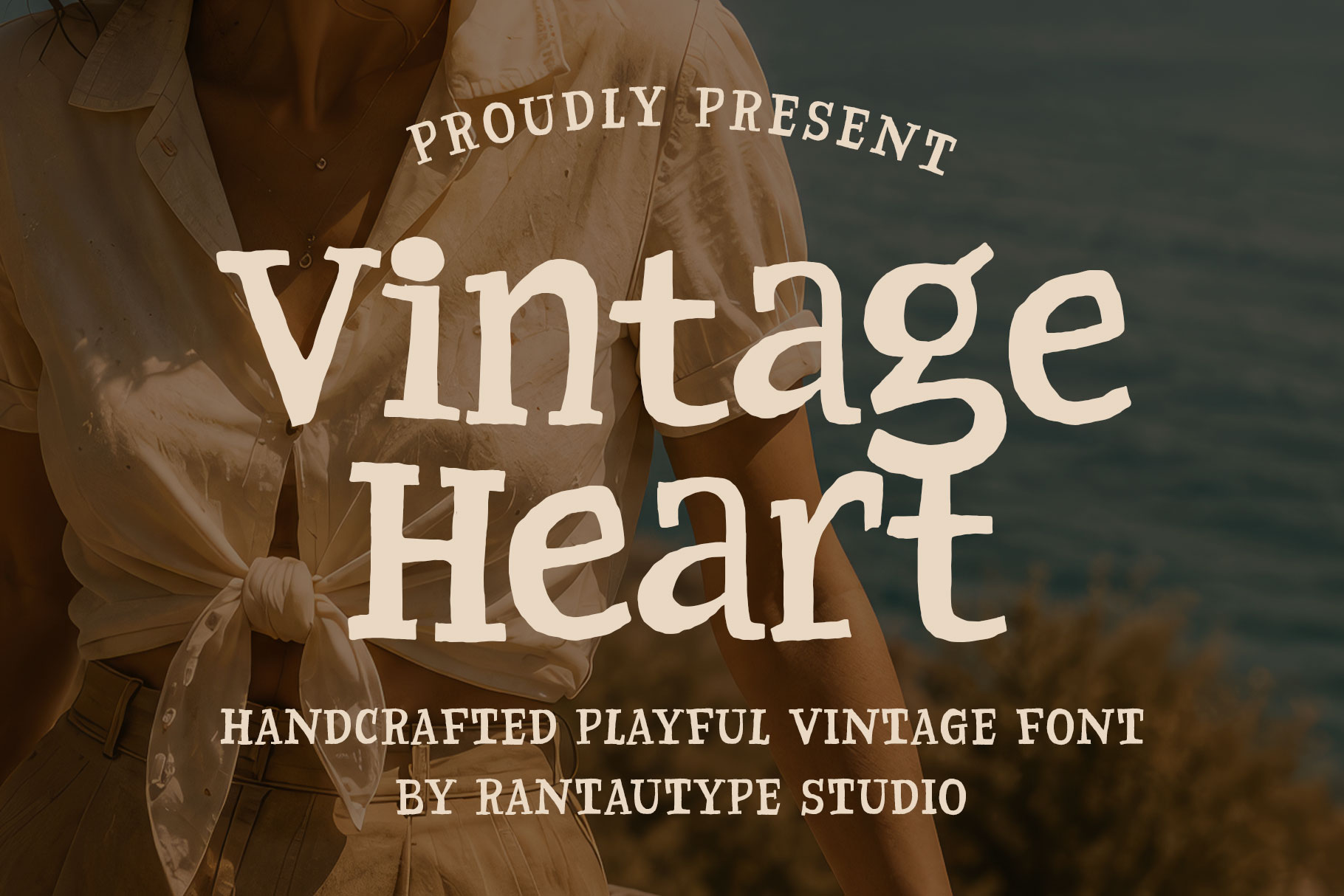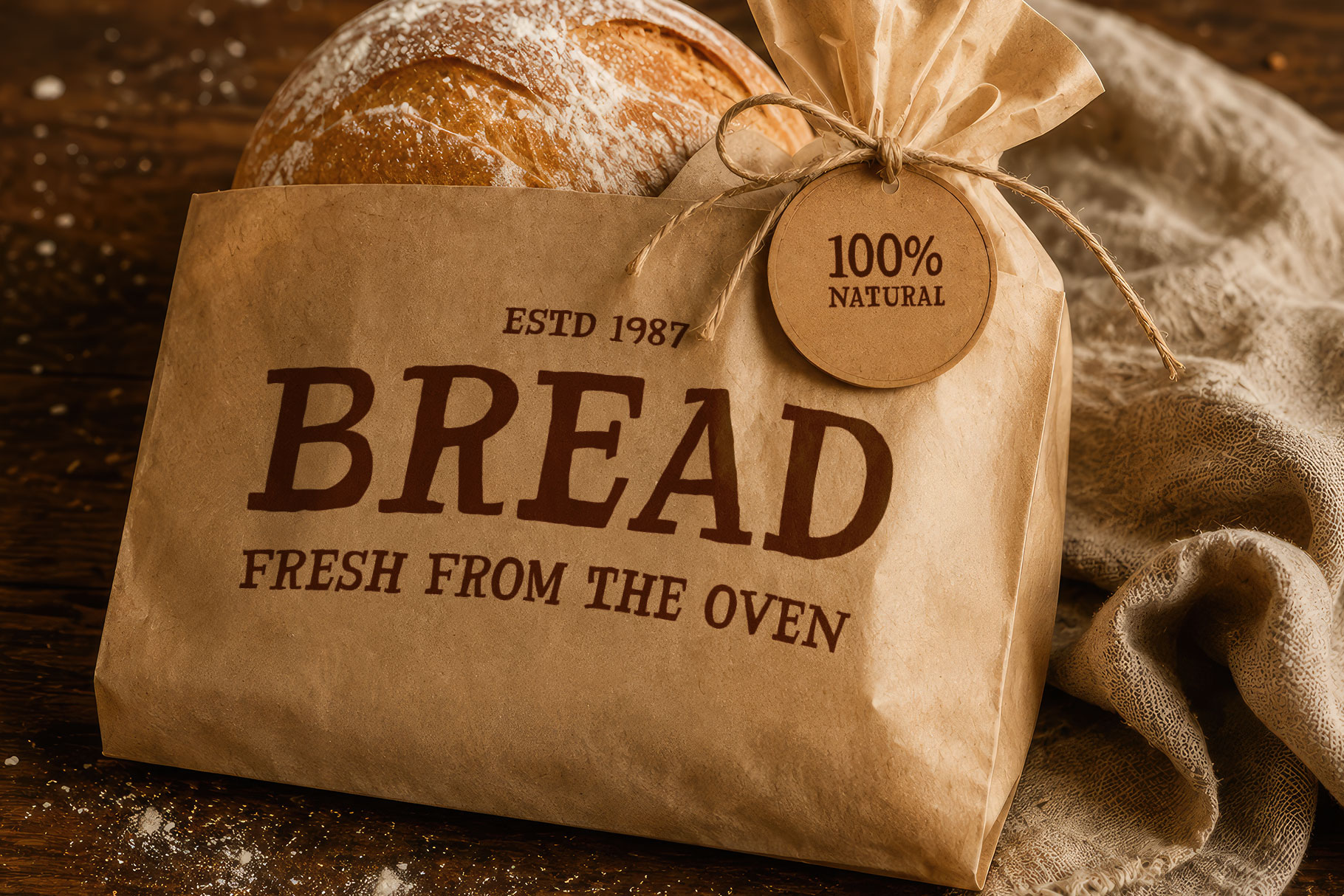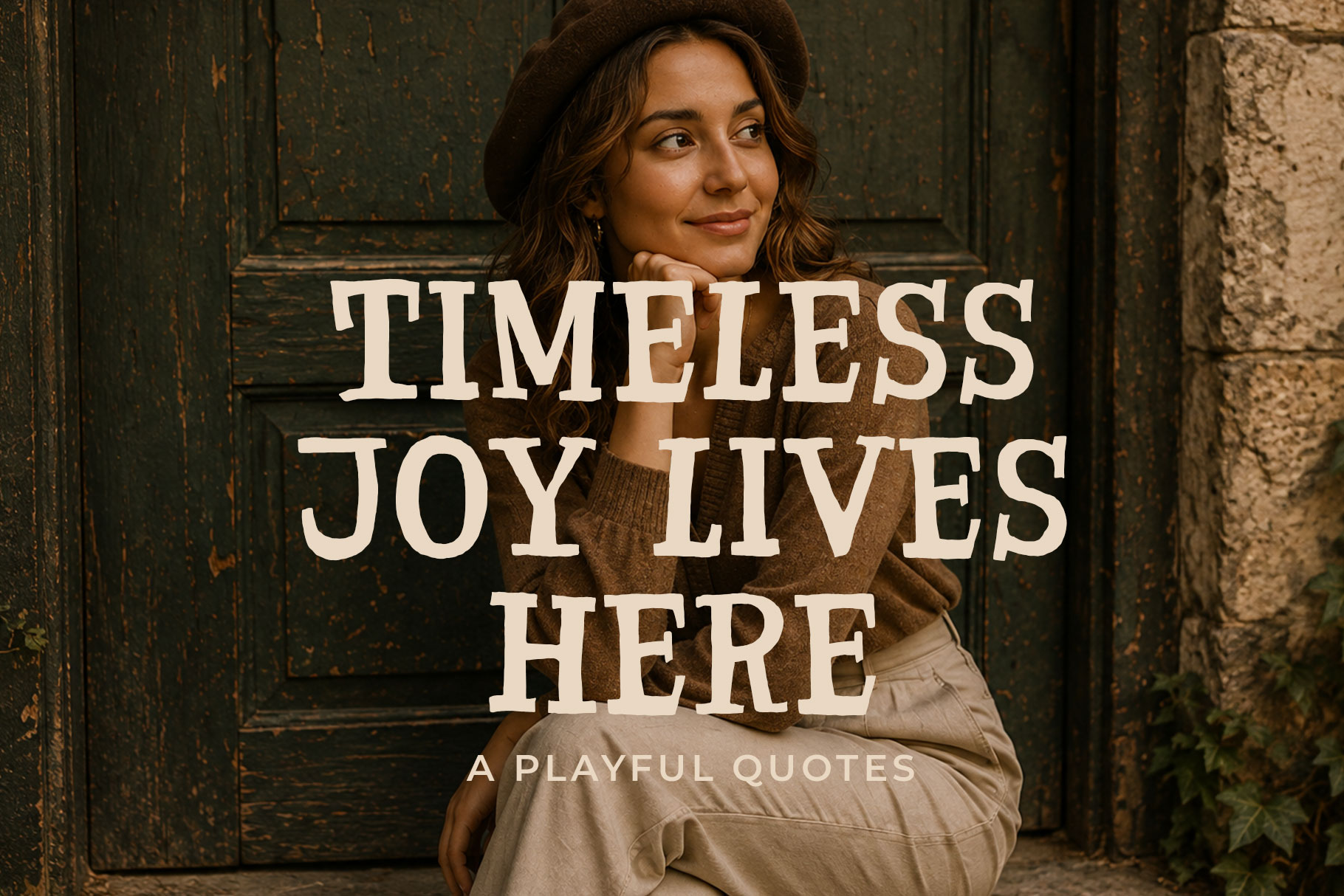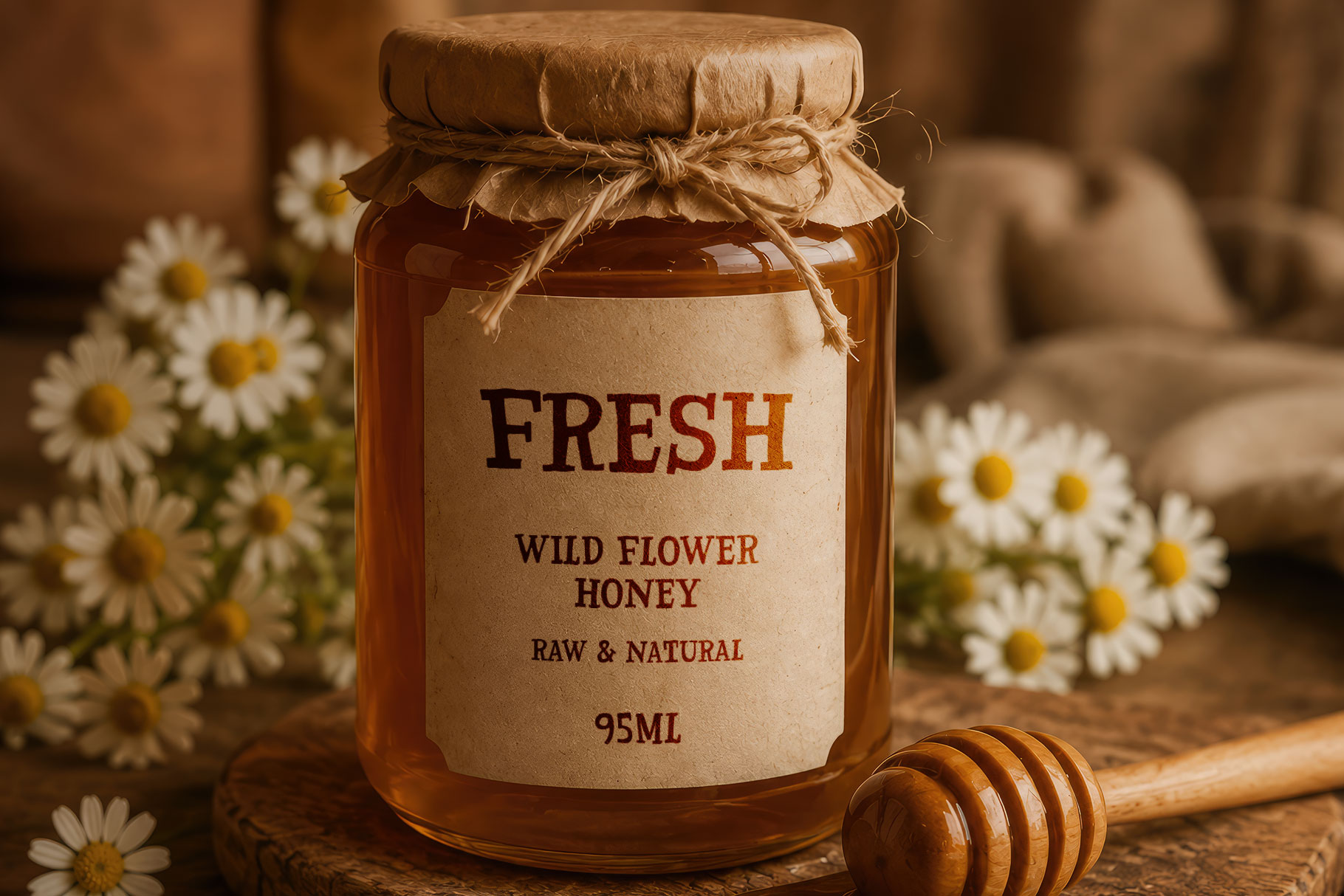
Vintage Heart is a handcrafted vintage display font designed to capture the warmth, charm, and authenticity of traditional craftsmanship. Featuring bold letterforms with organically rough edges and subtle imperfections, it delivers a genuine hand-cut appearance that evokes nostalgic signage, old print shops, artisan labels, and rustic packaging.
Vintage Heart is a perfectly choice for any creative endeavor, creating, modern, lifestyle design such as logotype, title, cover, branding, invitations, social media posts, advertisements, printed quotes, product packaging, corporate brand, product designs, labels, watermarks, special events and any other project with vintage touch.
Vintage Heart Handcrafted Playful Font